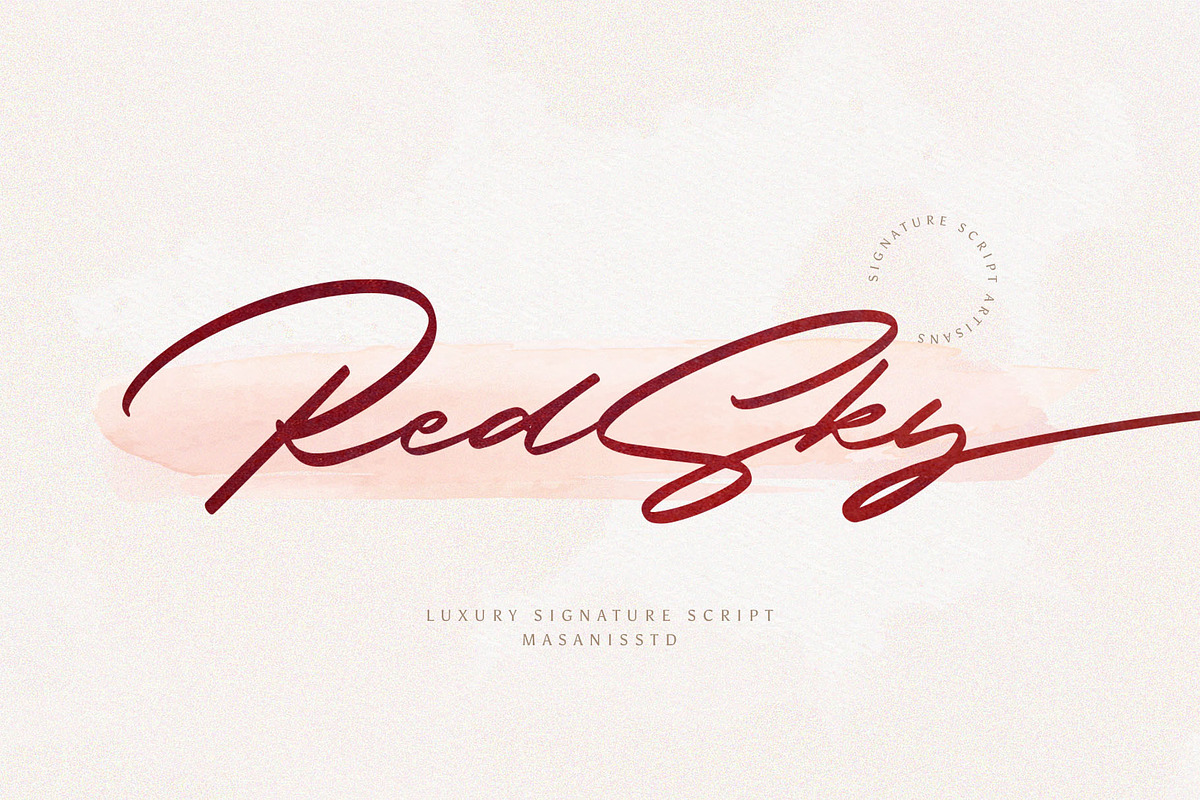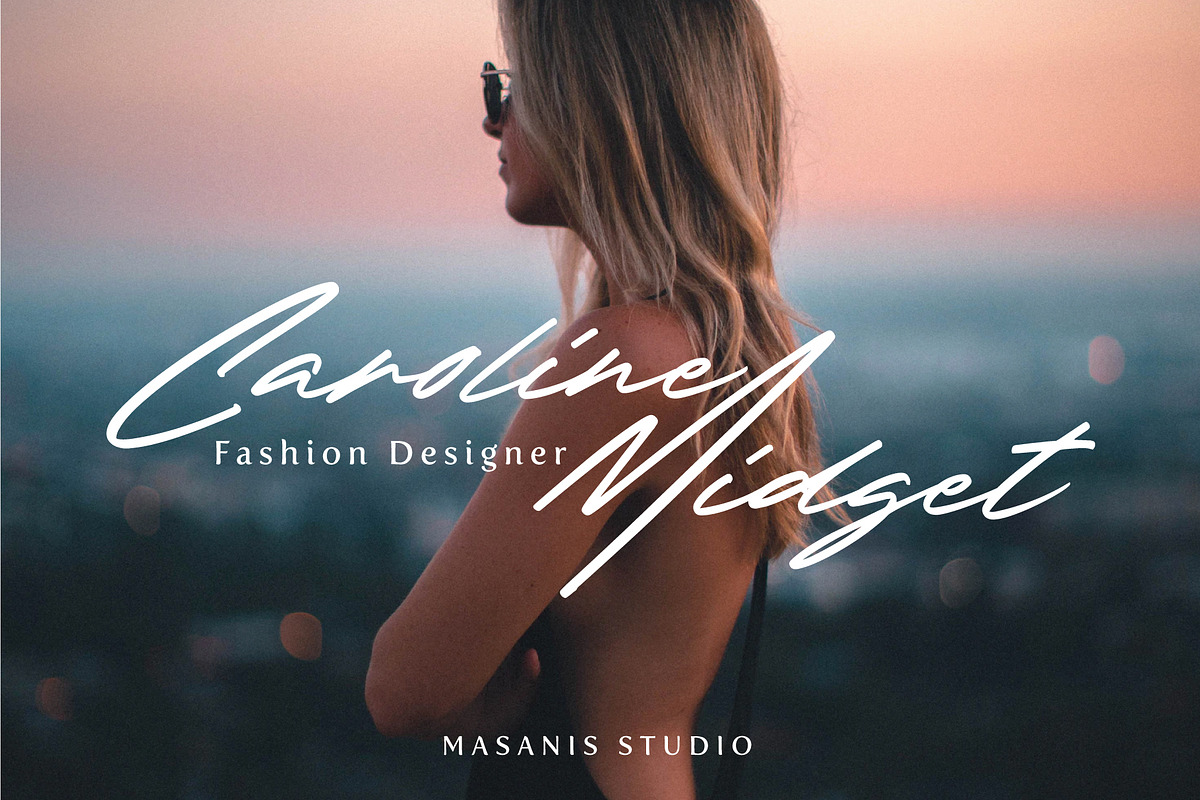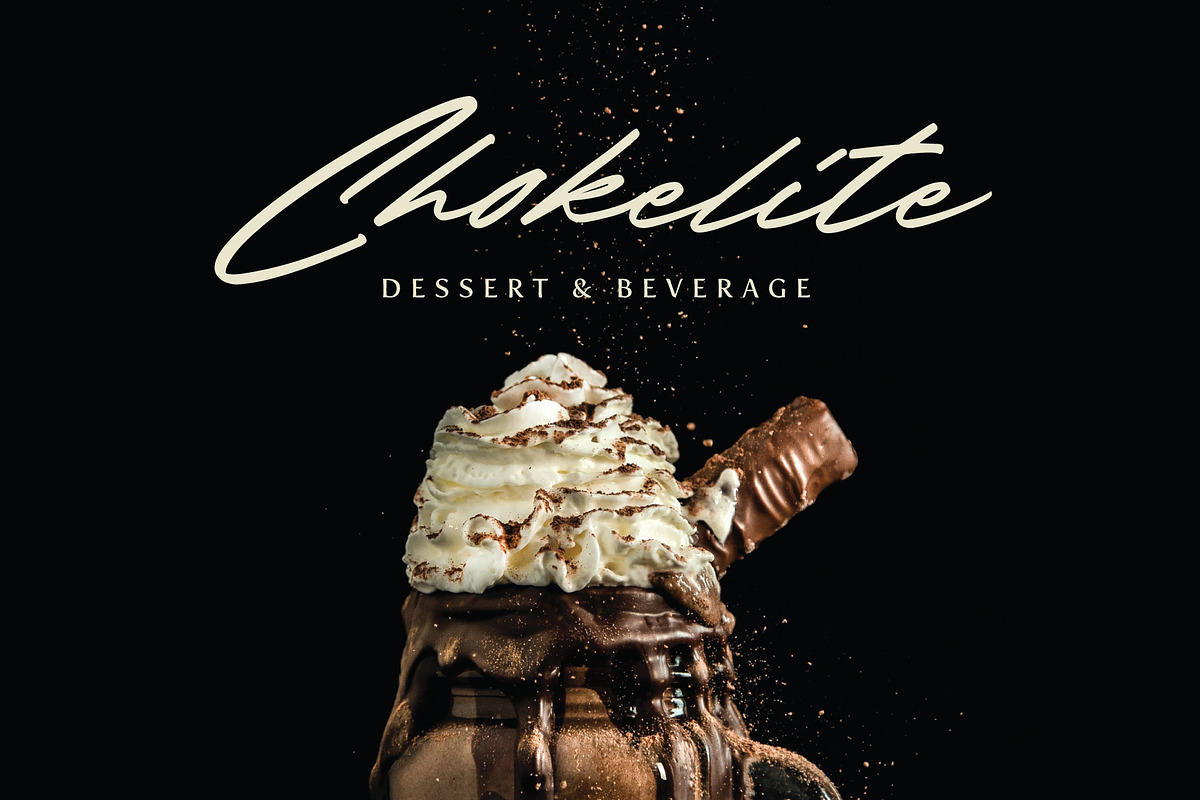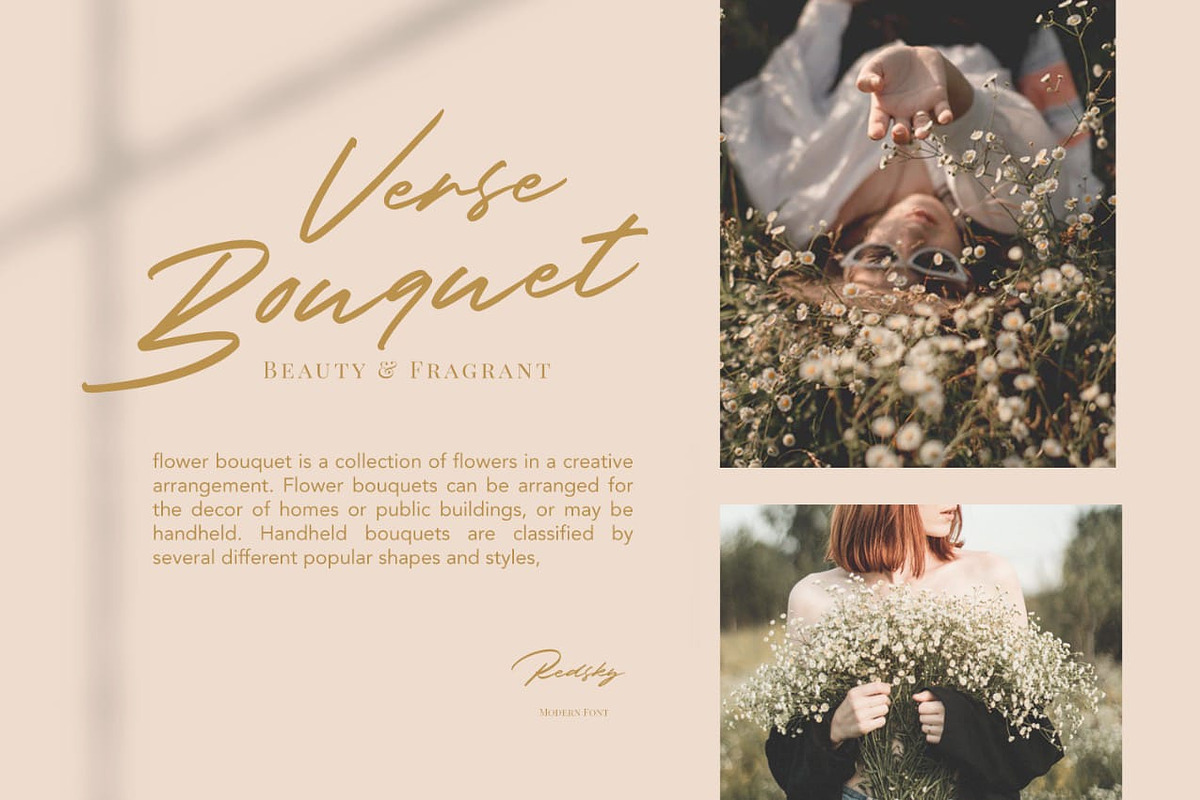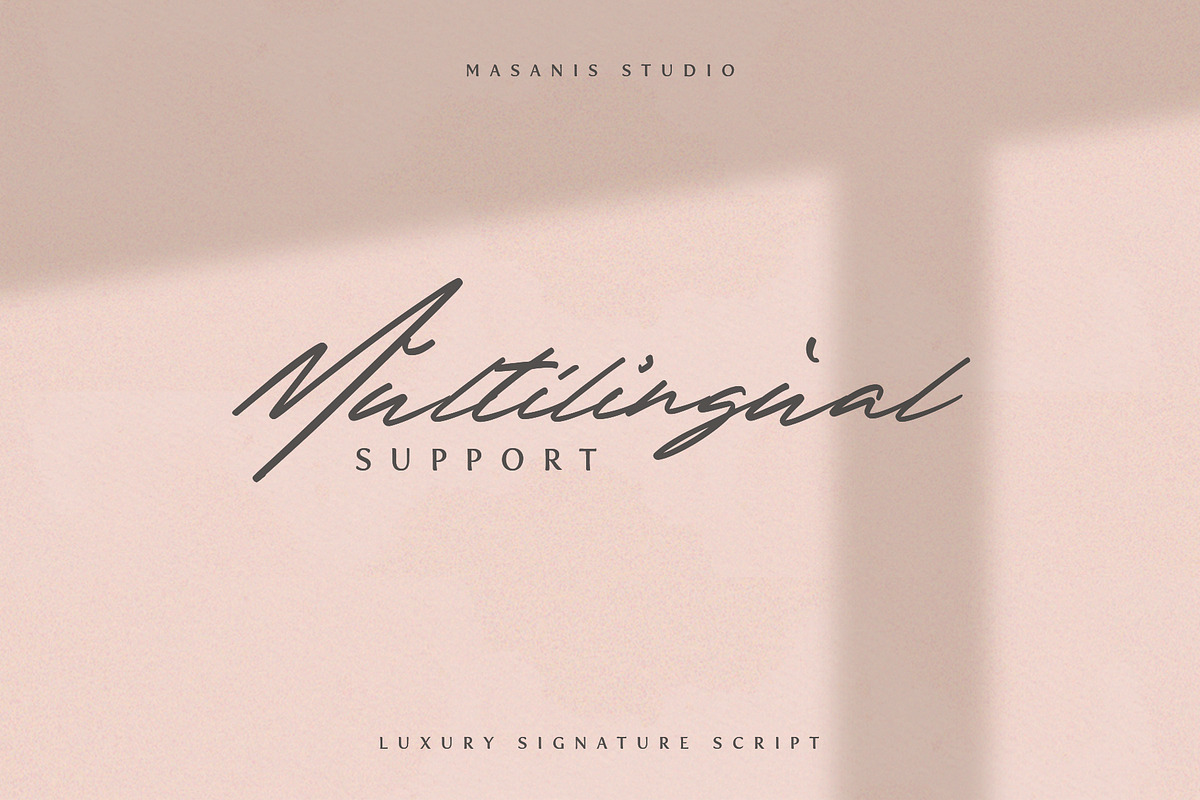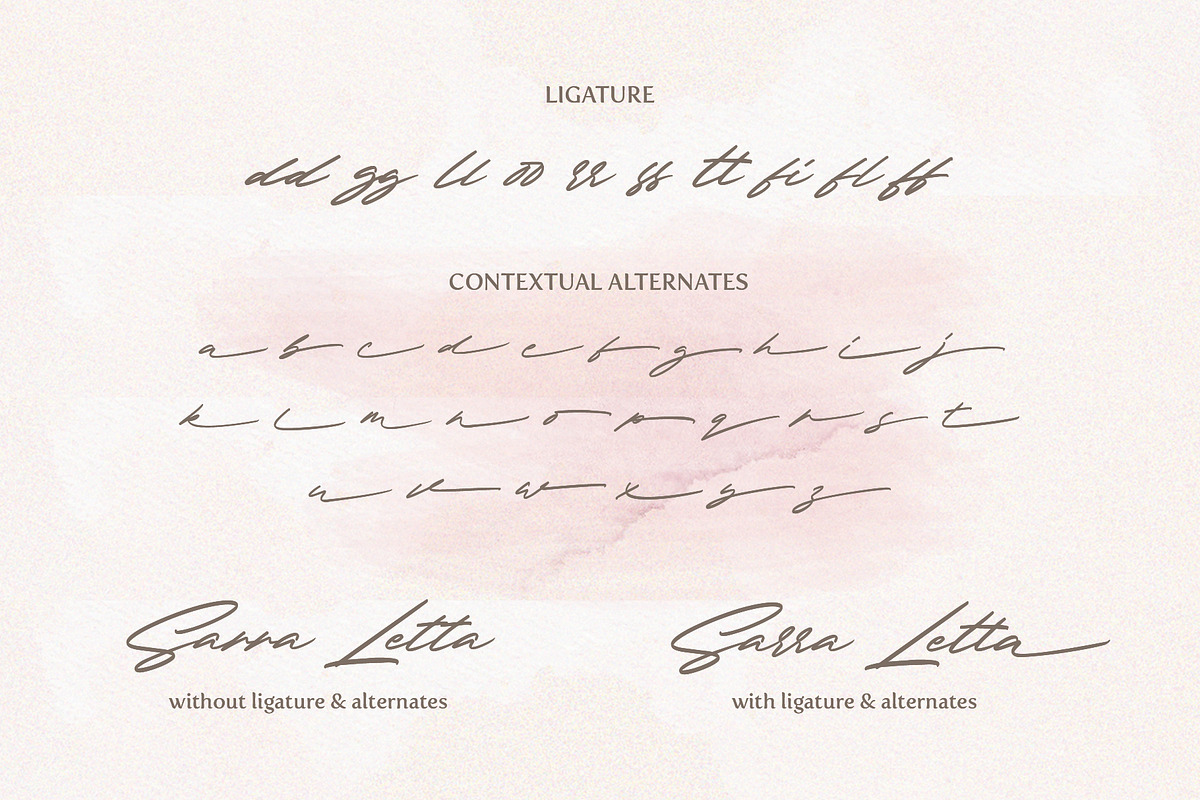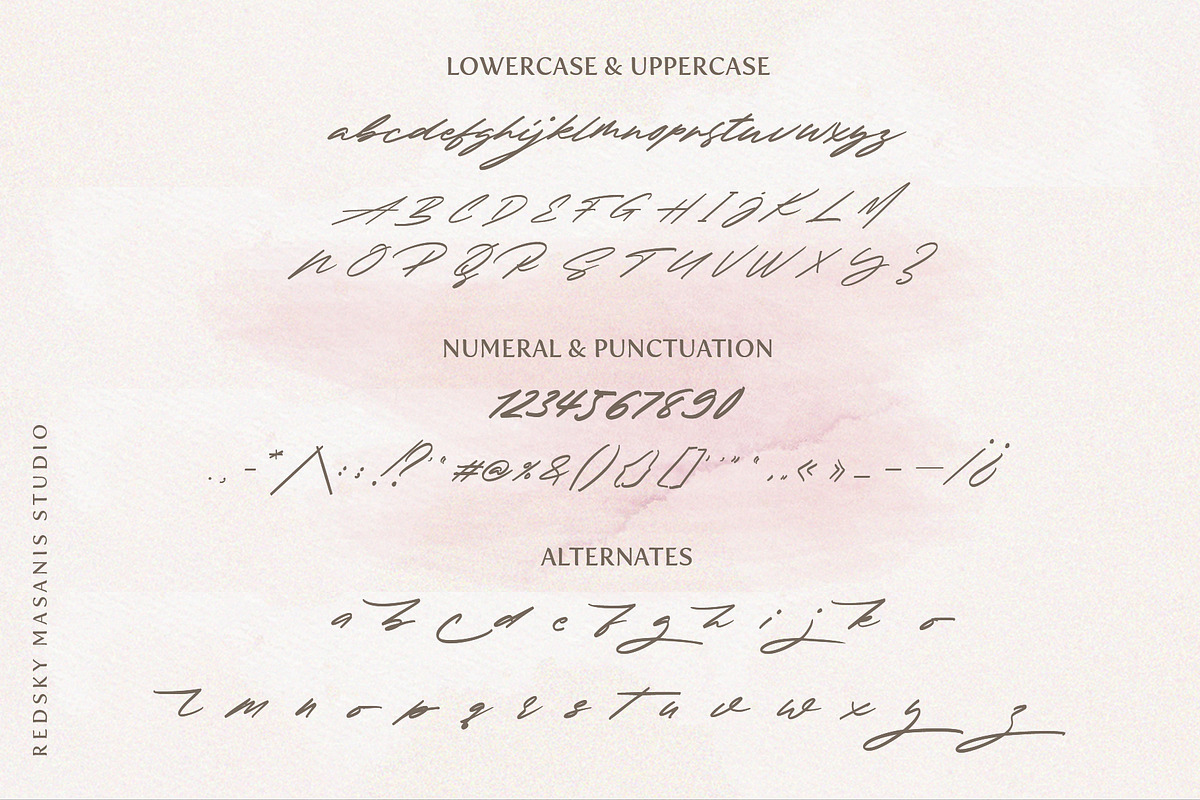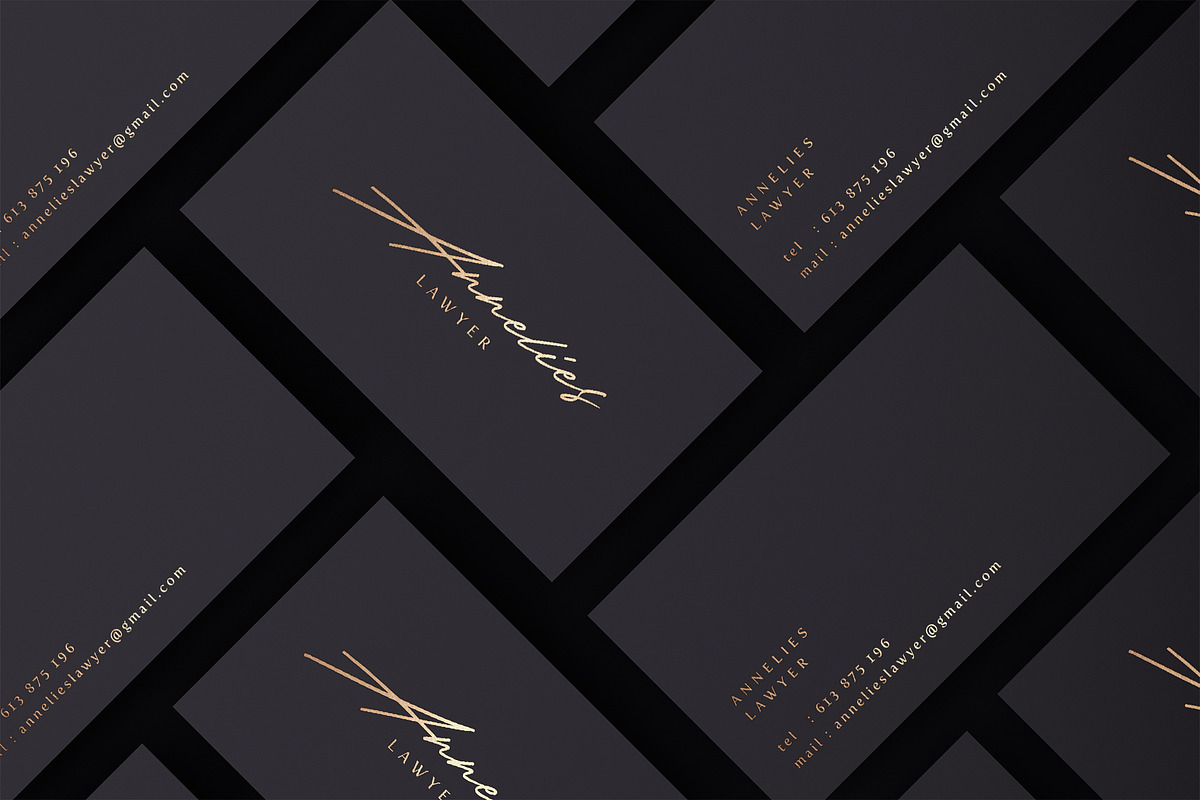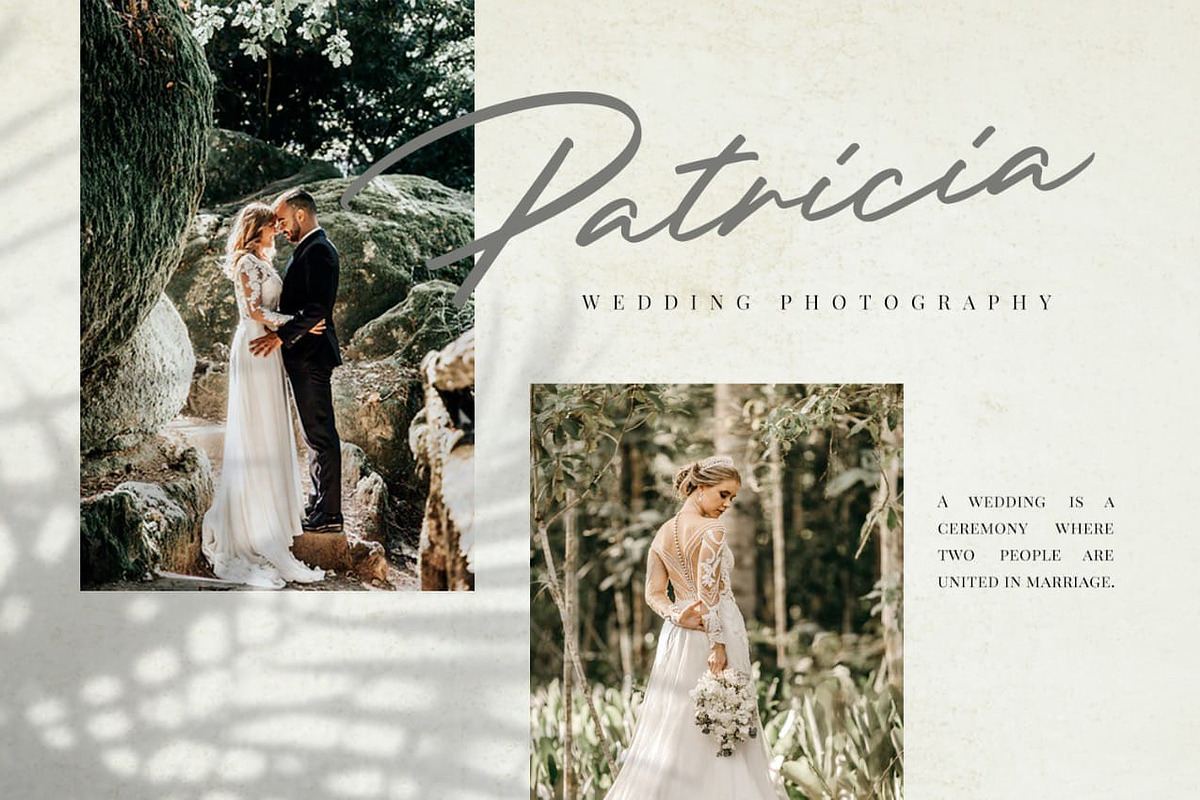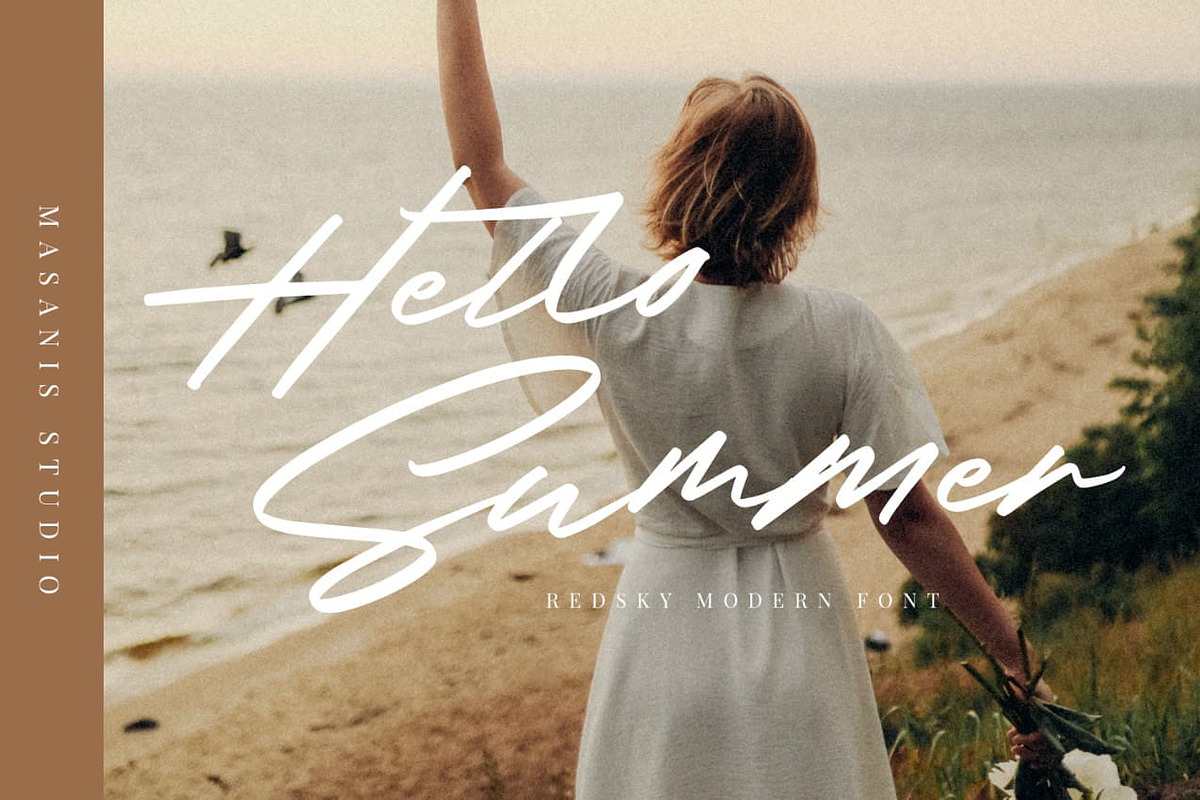
RedSky - Luxurious Signature
Hi Everyone! Meet our latest font, RedSky!
RedSky is a flowing handwritten font, described by an elegant touch, perfect for your favorite projects. Fall in love with its incredibly distinct and timeless style and use it to create spectacular designs!
We keep this elegant font looks elegant, classy, readable, stylish, eye-catching and easy to use.
With Modern and Classy style, make this font perfect for project like watermark for photo, wedding, event, invitation, escort card, table number, header menus, editorial, display, logos, slider blog, social media, custom address, stamps, packaging, greeting card, etc.
You can easily pair them with sans or serif font from all over the world to make your work more interesting!